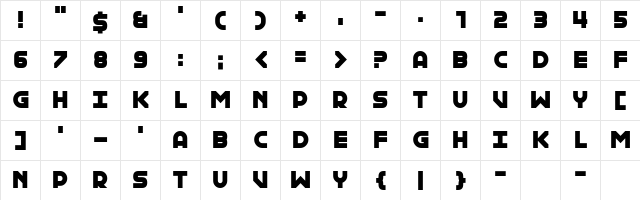
Internal Rainbows Regular
| Designer | Allison JJ |
Design Context for Internal Rainbows Typeface
Internal Rainbows is a composed and adaptable typeface that performs quietly and consistently across a wide range of design contexts.